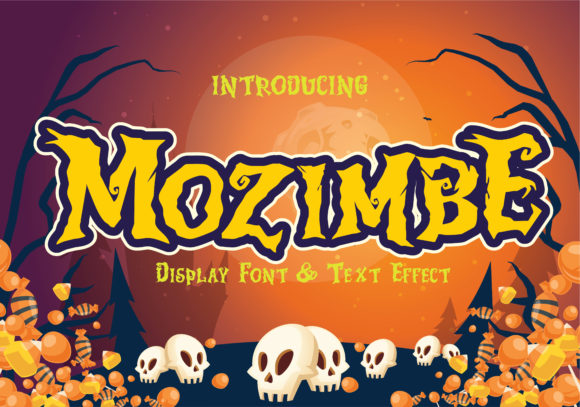
Introducing Mozimbe - The Font That Will Make Your Designs Scream Spooktacular!
In the realm of design, there's a font that stands out from the ordinary, casting a spellbinding charm that captivates and enthralls. It's Mozimbe, a display font that's not just a collection of letters, but a gateway to a world of eerie enchantment.
With its captivating curves and enchanting edges, Mozimbe possesses an otherworldly allure that will transform your designs into mesmerizing works of art. Picture your Halloween posters, invitations, and flyers adorned with this font, unleashing a symphony of screams and thrills.
Mozimbe is not just a font; it's an incantation that conjures up visions of haunted houses, cackling witches, and grinning jack-o'-lanterns. Its characters dance and swirl like ghosts in the moonlight, inviting your audience into a realm of spine-tingling wonder.
But Mozimbe's magic isn't limited to Halloween. Its versatility extends to any project that demands a touch of whimsy and enchantment. Unleash your creativity and let Mozimbe weave its spell on logos, branding, social media posts, and even greeting cards.
With Mozimbe at your fingertips, you'll become the sorcerer of design, mesmerizing your audience with captivating visuals. Join the legion of designers who have fallen under Mozimbe's enchanting spell and watch as your creations come alive with an eerie flair that will send shivers down their spines. Don't delay; embrace the power of Mozimbe today and let your designs scream spooktacular!